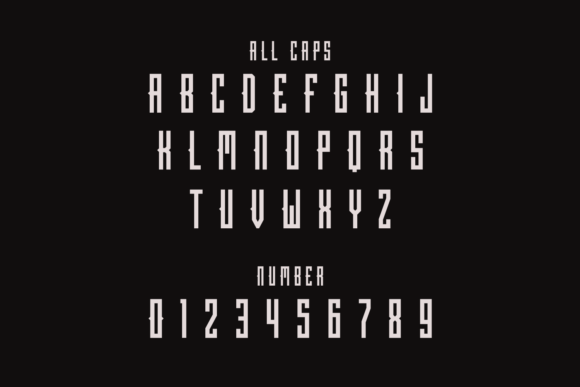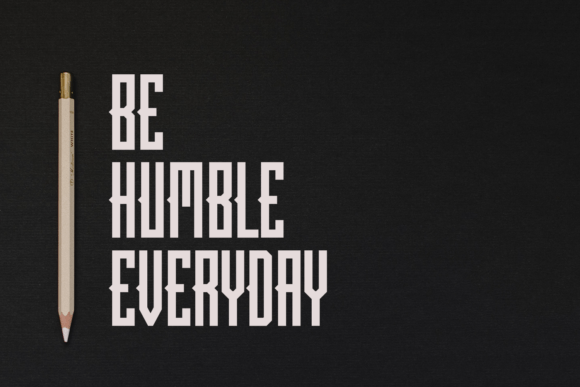
Introduction to Karibon Font
Have you ever been in the middle of a creative project, pouring your heart and soul into it, and then suddenly, you’re stuck? The perfect word, the perfect phrase, or even just the perfect font seems elusive, and it’s all you can think about. That’s exactly where the Karibon Font comes in – a game-changing design resource that can breathe new life into your work.
With its cool and unique display style, the Karibon Font is a high-quality addition to any designer’s library. Whether you’re working on a project that requires a transparent background or a bold statement, this font has the potential to elevate your creation to the next level.
Key Features of Karibon Font
- High-quality font: It features a unique, high-quality design that is suitable for various creative projects.
- Large character set: It includes a large character set, making it suitable for various languages and creative projects.
- Unique design: Karibon Font features a unique design that is not easily found in other fonts, making it a great addition to any design collection.
Honest Review: Karibon Font
- ✨ High-quality design: The Karibon Font is well-designed and visually appealing, making it perfect for a wide range of creative projects.
- ✨ Versatile: This font can be used for both digital and print designs, offering flexibility and convenience for designers.
- ✨ Transparent background: The font’s transparent background makes it easy to layer over images or use as a design element in creative projects.
- ⚠️ Limited font variations: Compared to other fonts, the Karibon Font has a limited number of variations, which may limit its use in certain projects.
- ⚠️ Not suitable for all design styles: While the font is versatile, it may not be the best choice for very modern or minimalist design styles.
Overall, I’m impressed with the Karibon Font. It’s a high-quality design resource that can add a unique touch to any creative project. While it may have some limitations, it’s definitely worth considering for your next design project.
The Karibon Font is a high-quality design resource perfect for any creative project. With its unique style and versatility, it can be used in a variety of applications, from logos to graphics and more.
Getting the Most Out of Karibon Font
To get the most out of the Karibon Font, experiment with different font sizes, colors, and combinations. You can also use it in conjunction with other design elements to create unique and eye-catching designs.
The Karibon Font is perfect for a variety of use cases, including:
- Logos and branding
- Graphics and illustrations
- Presentation and document design